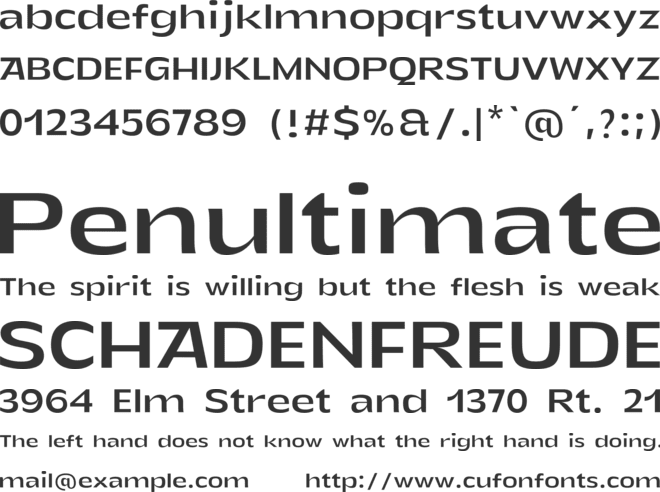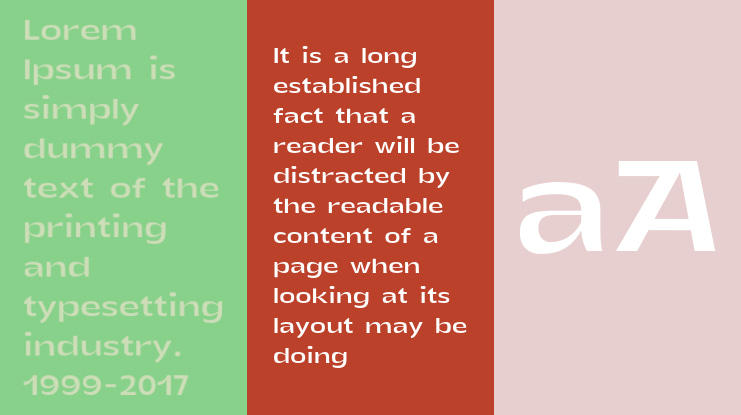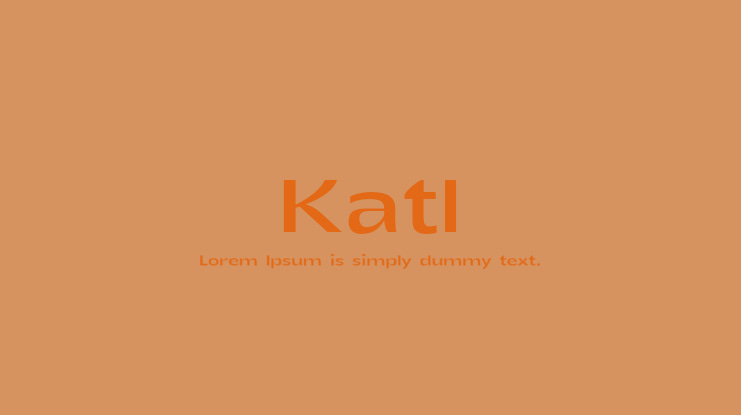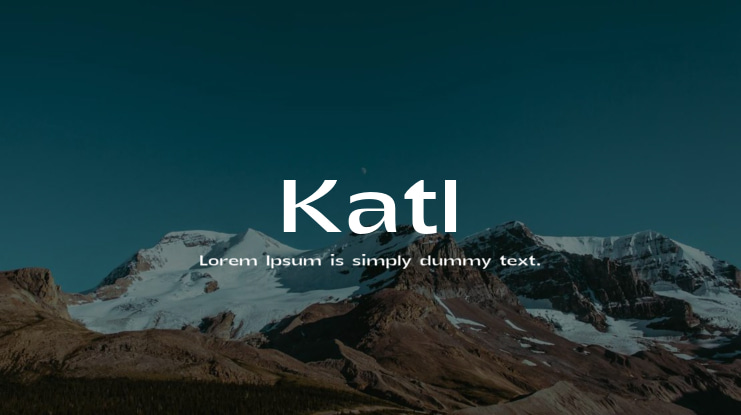
Katl is a sleek and contemporary sans-serif typeface, designed with a modern aesthetic that seamlessly blends simplicity and sophistication. The font offers an impressive range of 9 weights, from the delicate Thin to the commanding Black, ensuring versatility for various design applications.